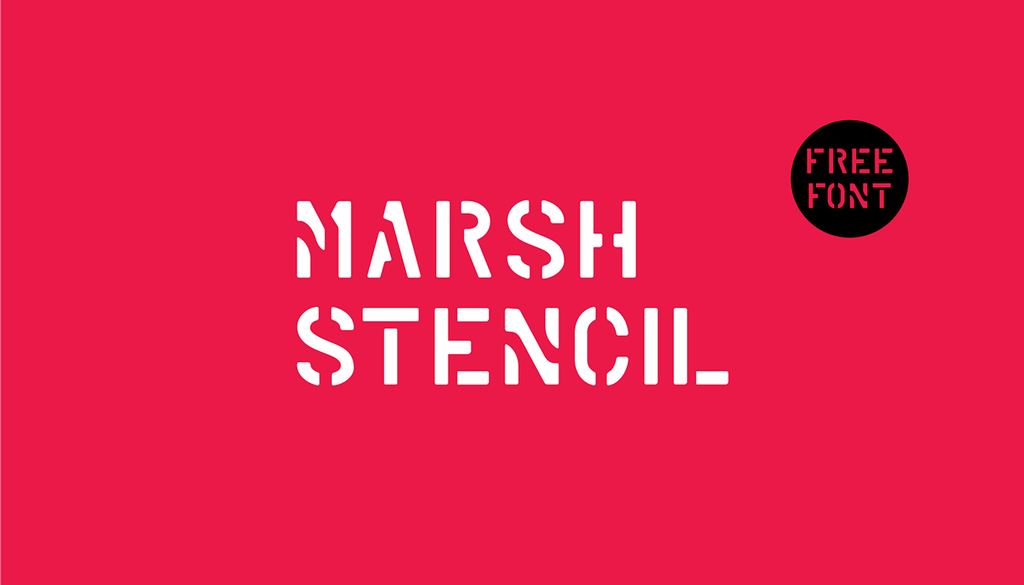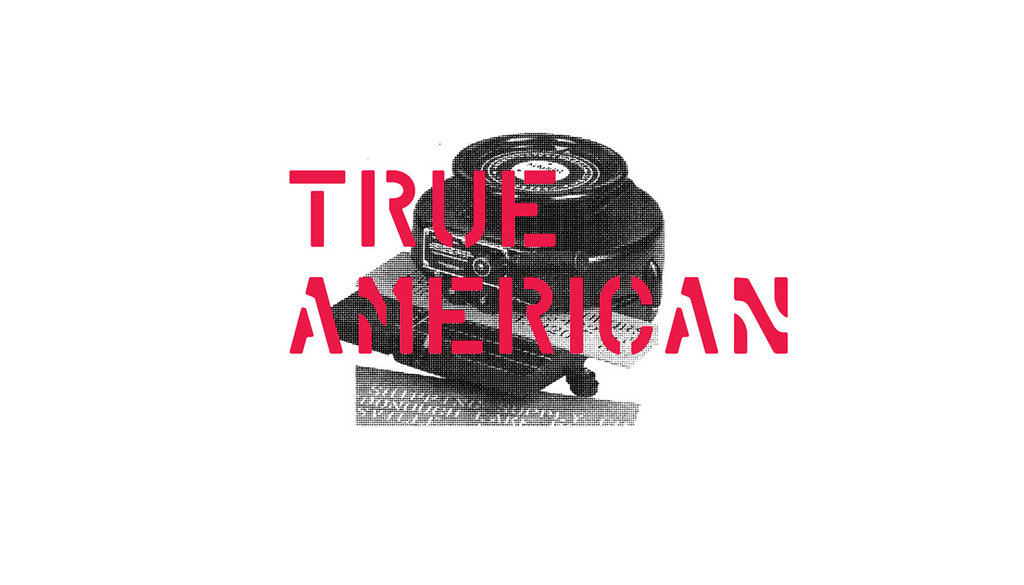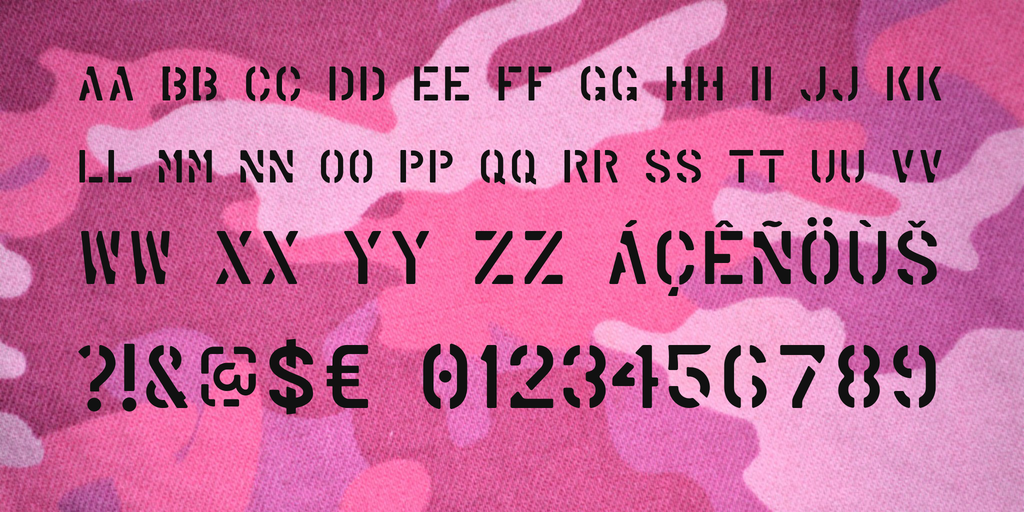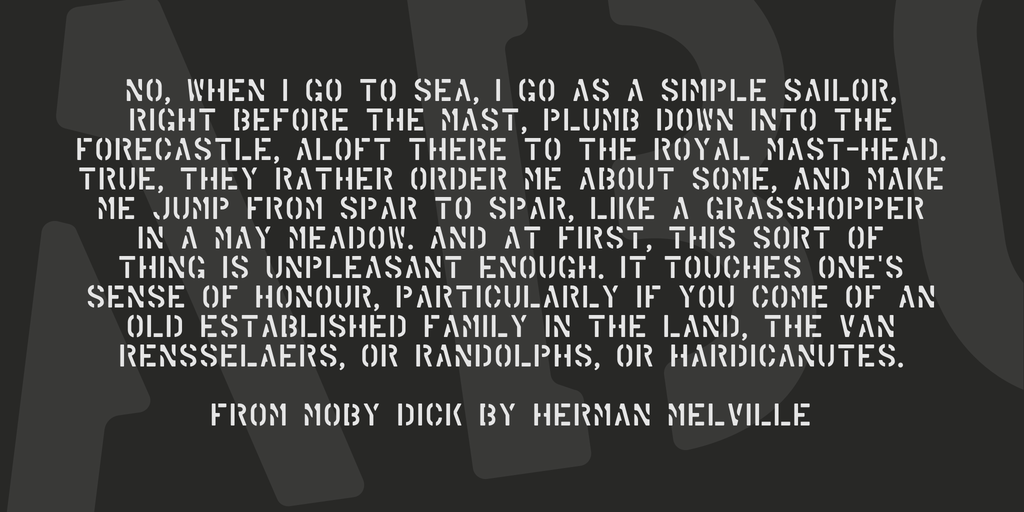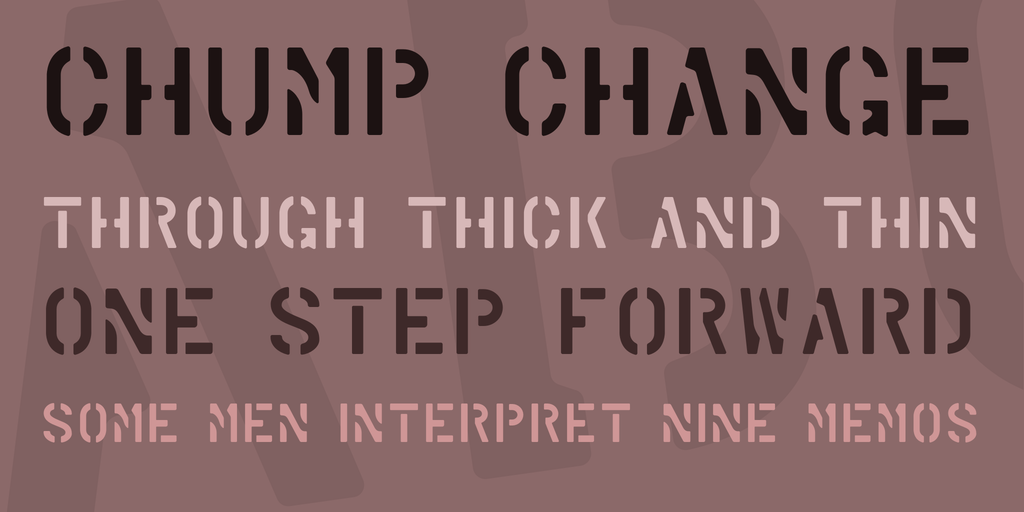
Marsh Font
Marsh Font Made by Guilherme Schneider
MARSH STENCIL is a revival of an old stencil typeface produced by the American company MARSH Stencil Machines during WWII. It’s FREE